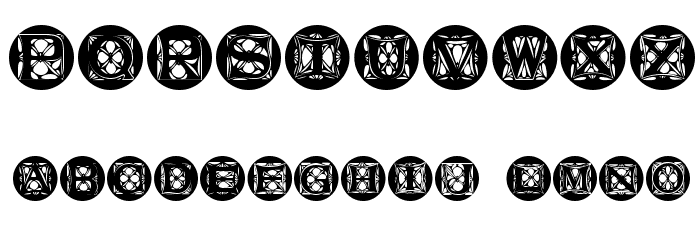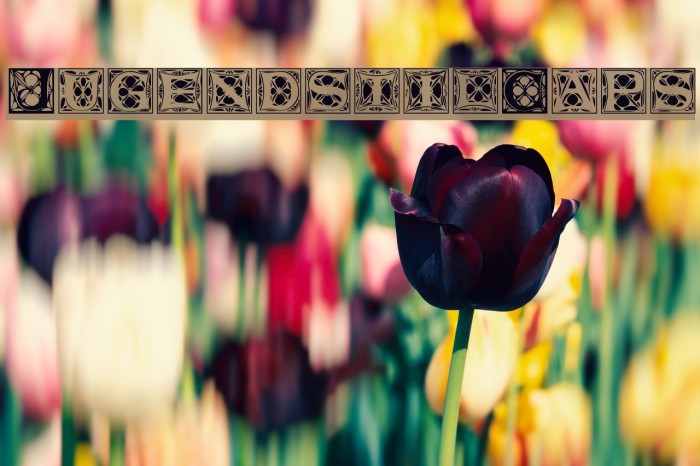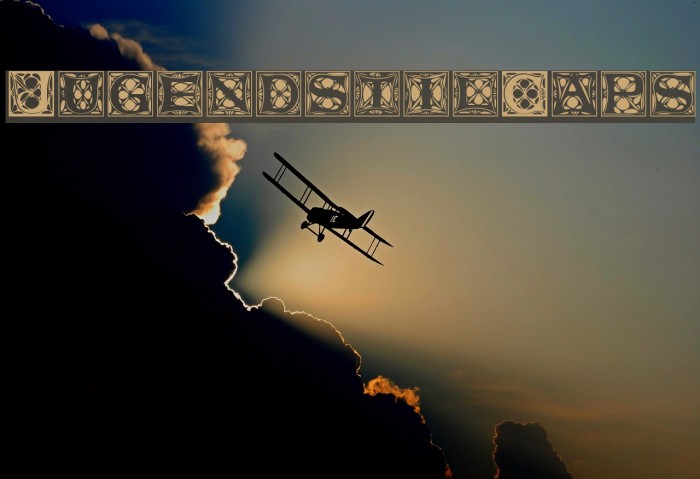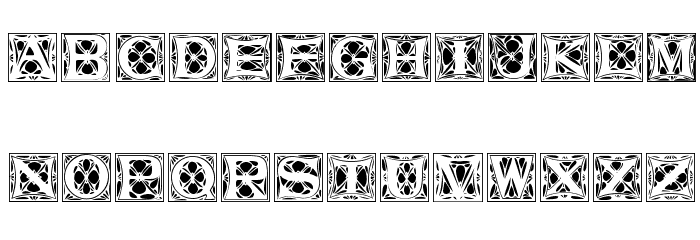
JugendstilCaps Font
This font features an intricate and decorative style, reminiscent of the Art Nouveau movement. Each letter is enclosed within a square or circular frame, filled with elaborate patterns and motifs that evoke a sense of elegance and artistic flair. The design is highly ornamental, with a focus on symmetry and detailed line work. The uppercase letters are bold and striking, making them ideal for decorative purposes. The overall aesthetic is both vintage and sophisticated, capturing the essence of early 20th-century design trends.
An ornate, Art Nouveau-inspired decorative font with intricate patterns.
• Proposed Projects: Ideal for use in vintage-themed posters, artistic book covers, decorative invitations, and branding projects that require a touch of elegance and historical flair.
• Category: Decorative/Display
• Bold: Yes
• Italic: No
• Weight: Bold
• Width: Normal
• Character Spacing: Normal
• Contrast: High
• Overall Style: Vintage, Decorative
• Use Case: Headlines, Logos, Decorative elements